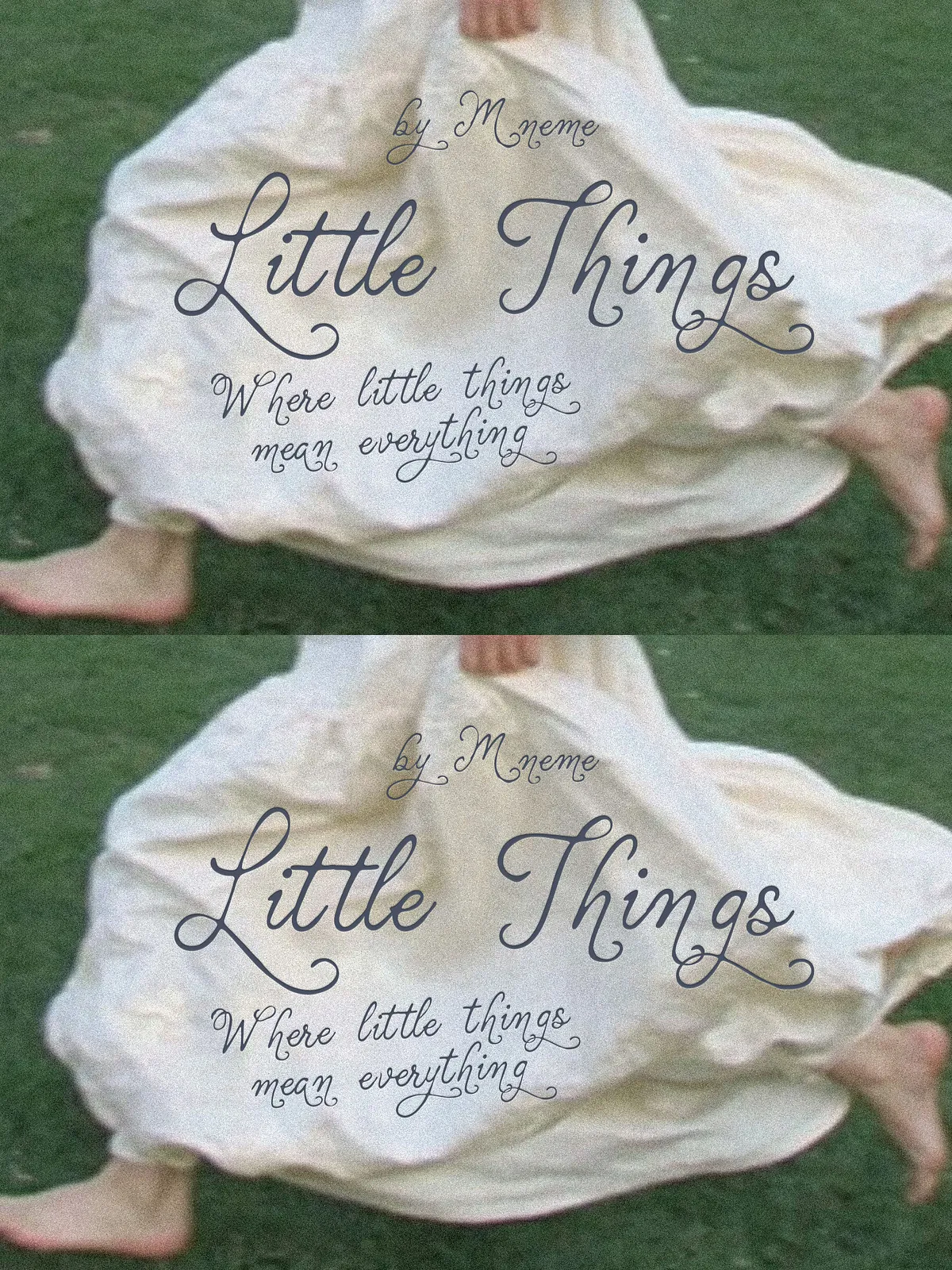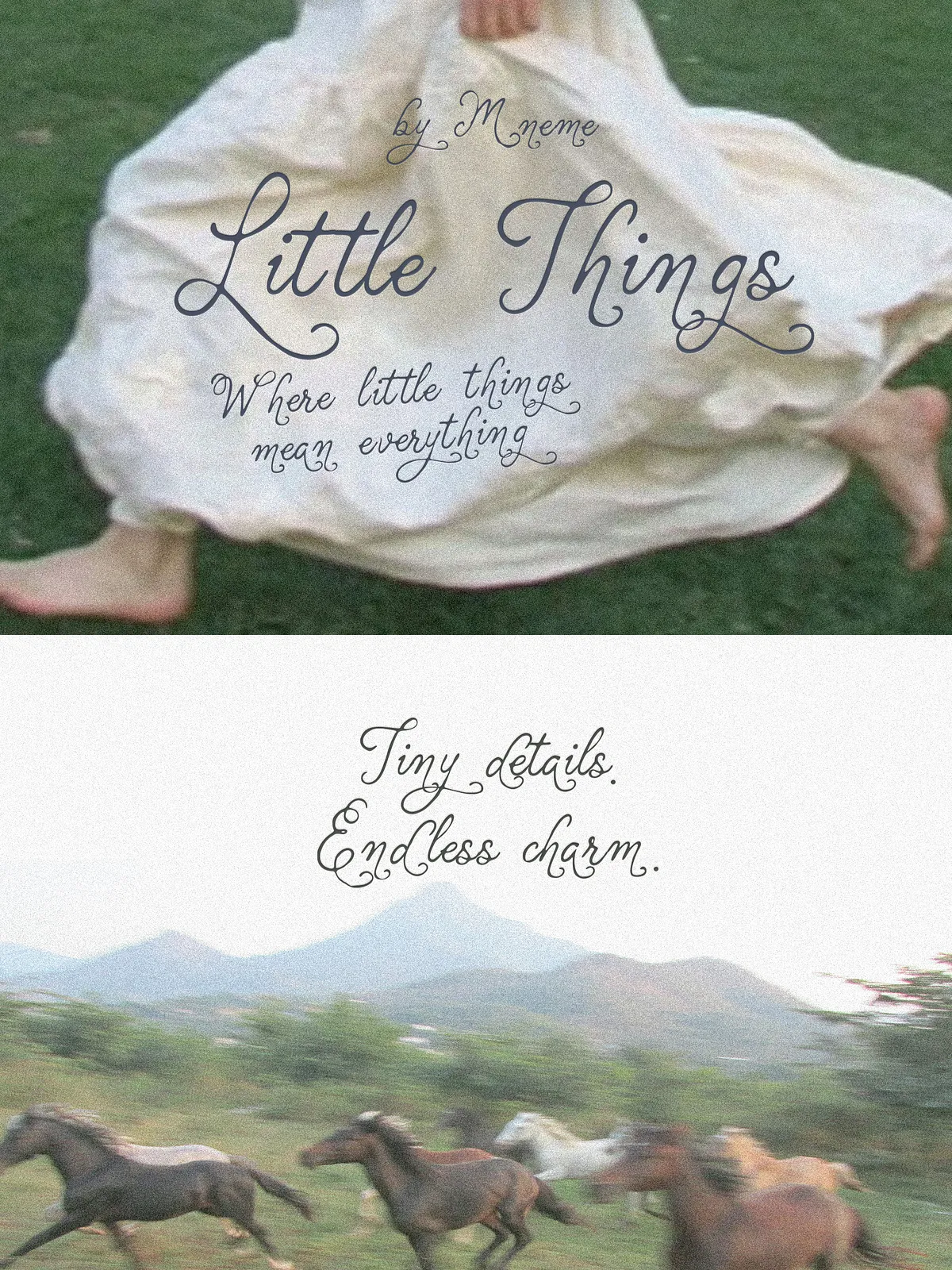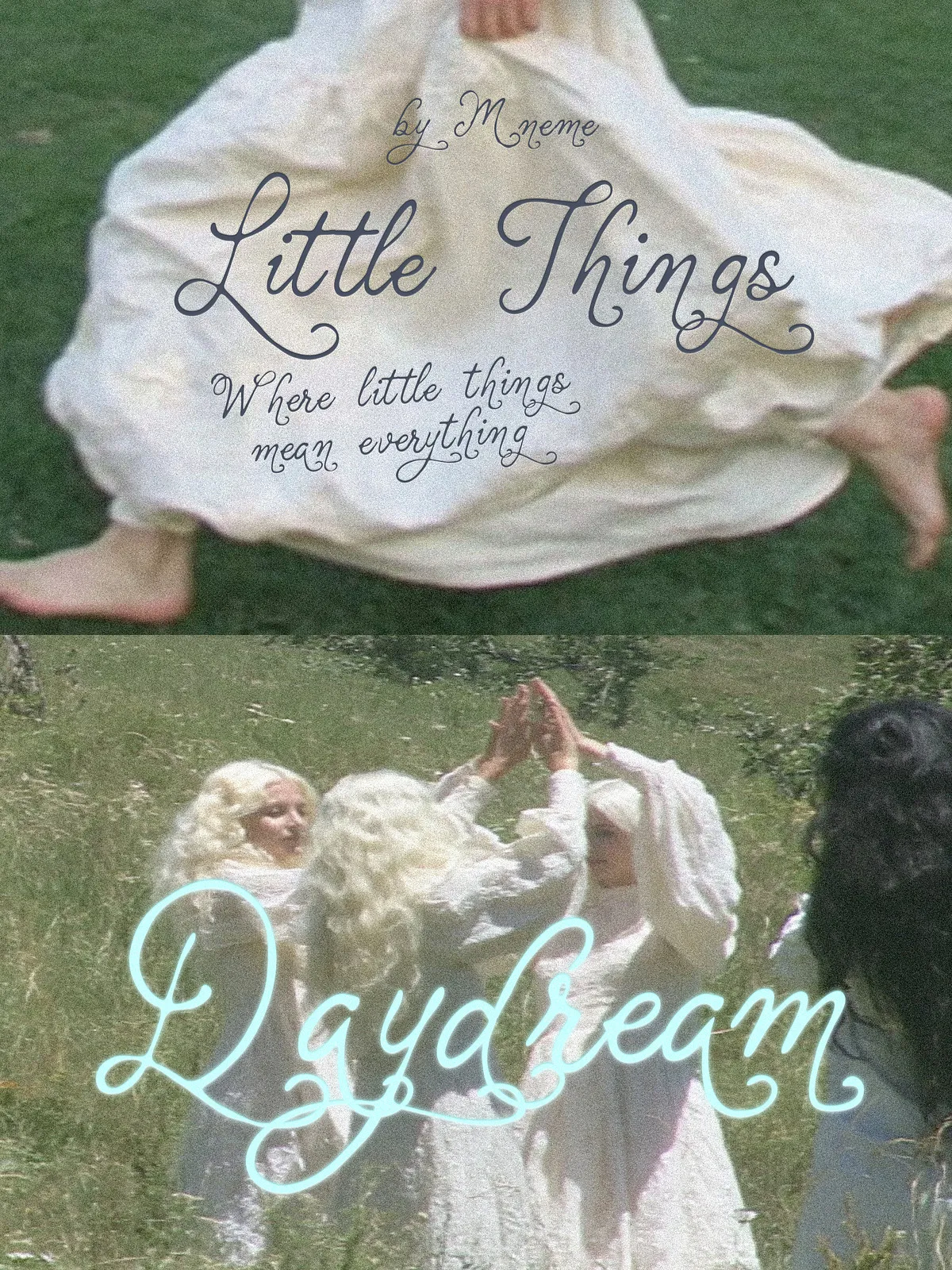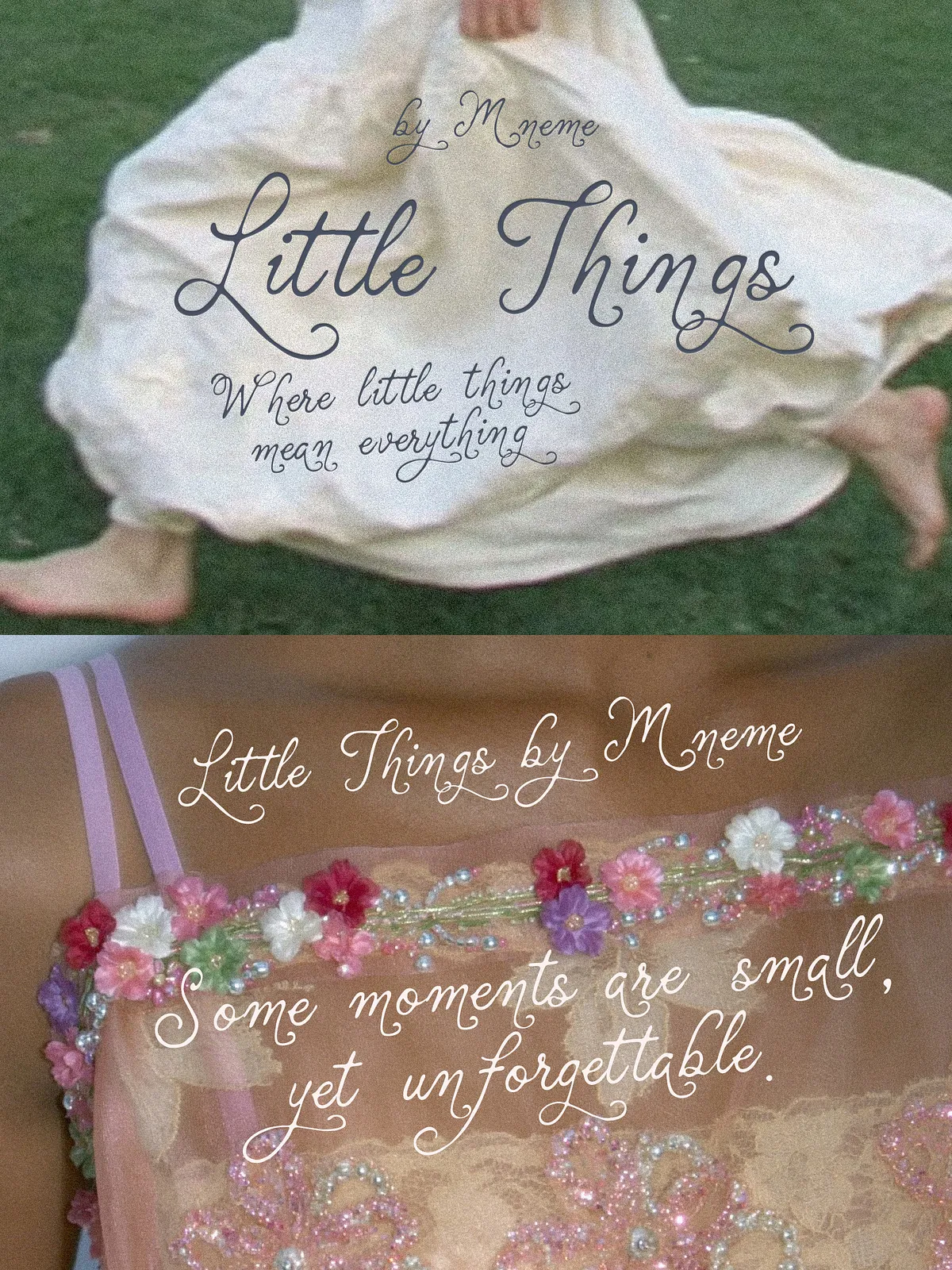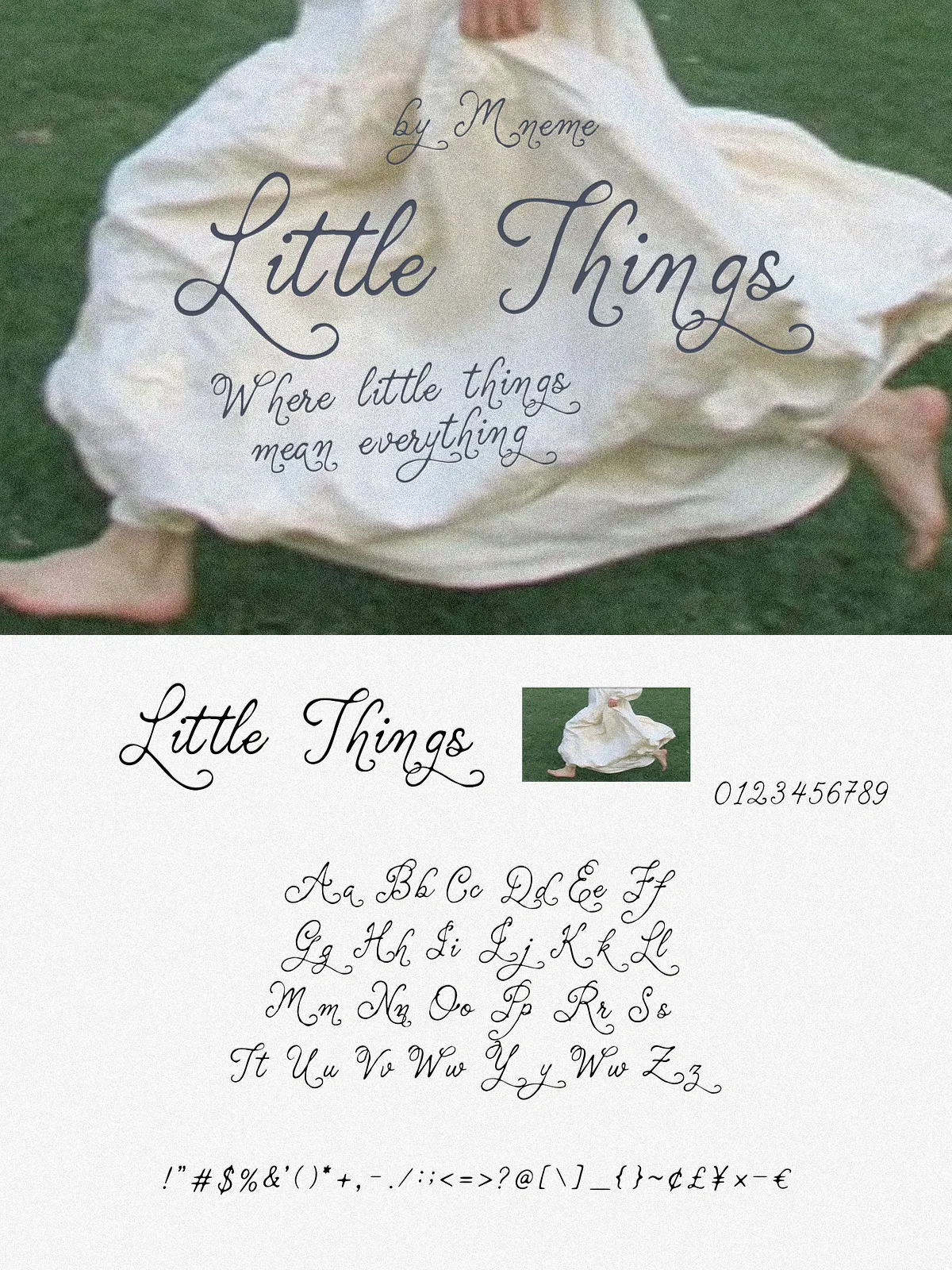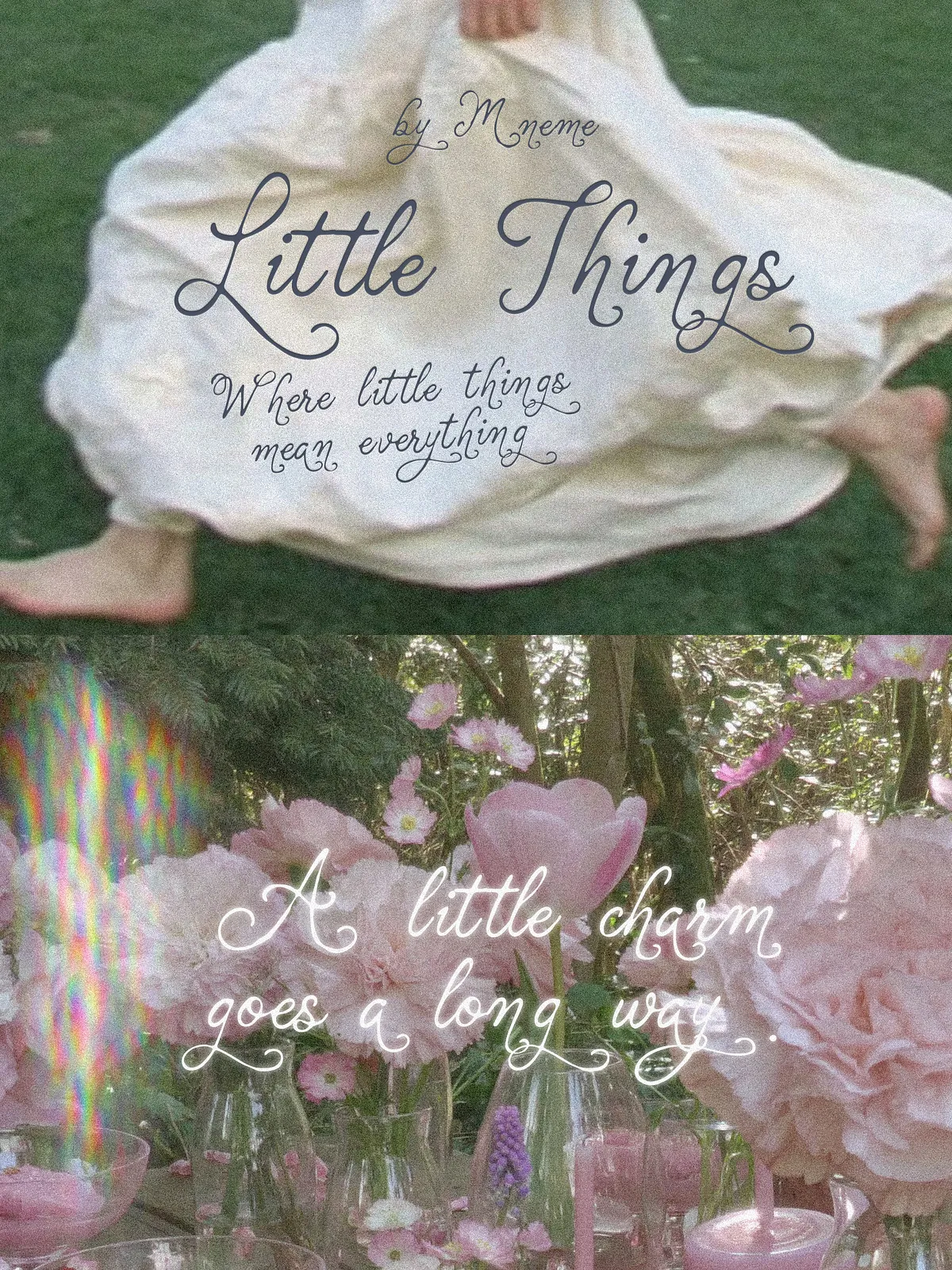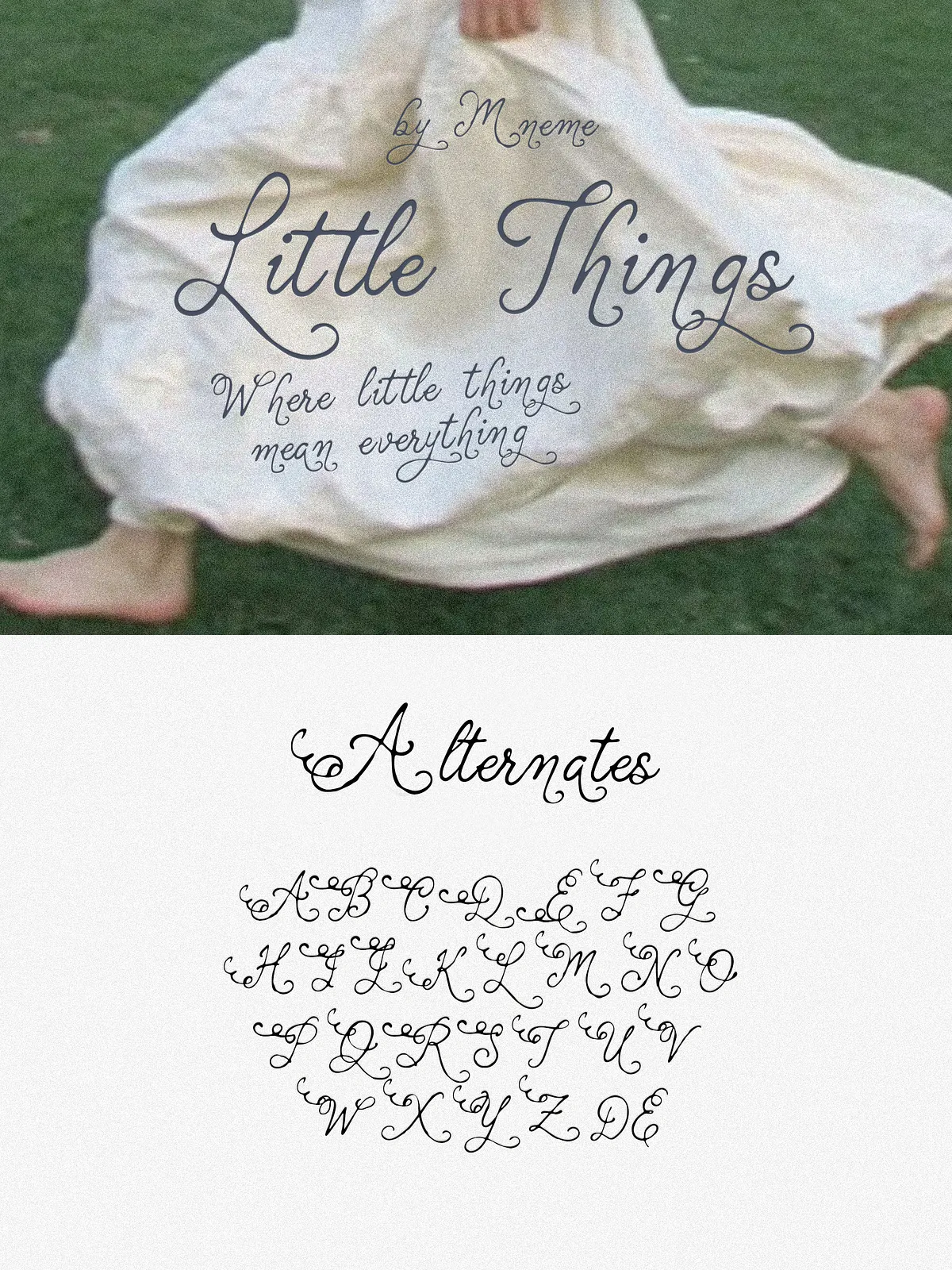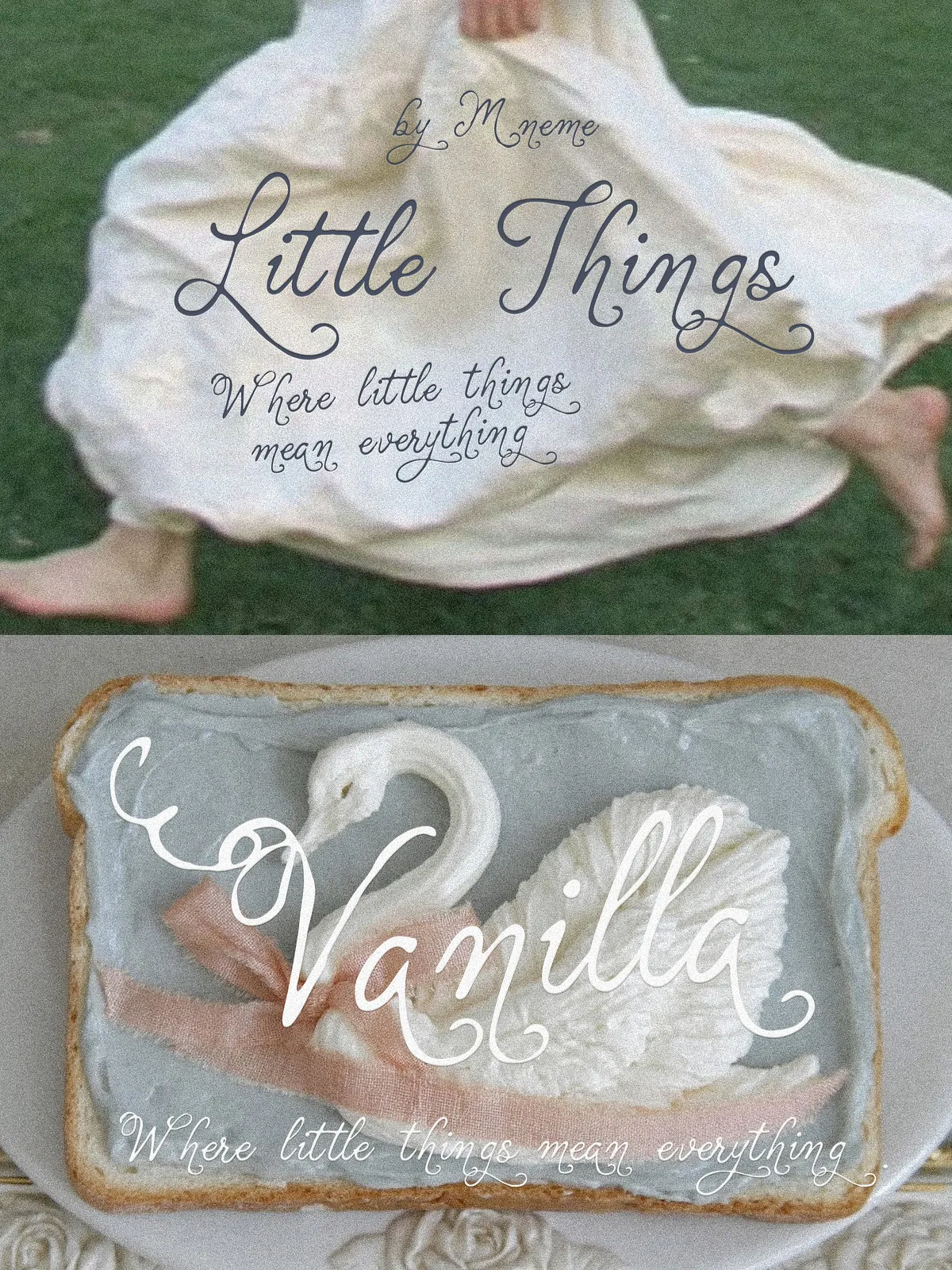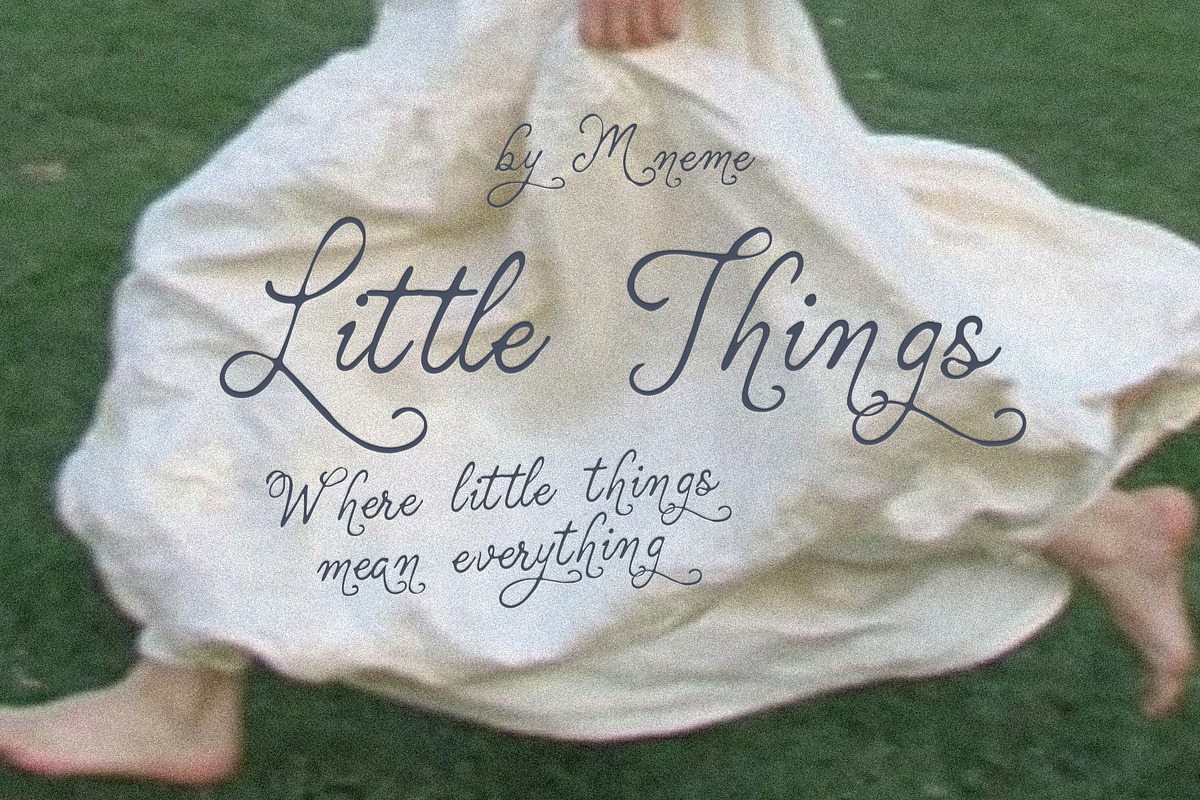
LittleThings brings the intimacy of handwritten notes and the elegance of vintage stationery into your modern designs. This display typeface combines soft curves, delicate swashes, and tasteful decorative flourishes to create a warm, nostalgic voice that reads clearly and feels personal. LittleThings enhances brand personalities, elevates invitations, and transforms packaging into memorable tactile experiences.
Design Character
Handwritten Warmth
LittleThings captures natural pen movement and the gentle rhythm of handwriting. Each glyph flows with organic strokes and subtle imperfections that make copy feel handcrafted. The font balances informality and refinement so it works equally well for charming labels and upscale stationery.
Decorative Details
Delicate swashes and flourishes add ornament without overwhelming the letterforms. LittleThings uses restrained decoration to highlight key words and create focal points in headlines, logos, and product names. The result reads as intentional and refined rather than ornate for ornament’s sake.
- Handcrafted letterforms with soft curves and swashes
- Clear, readable shapes for both short headlines and decorative lines
- Strong performance in print and digital layouts
- Ready-made personality for branding, stationery, and product design
Ideal Applications
LittleThings excels in contexts that benefit from warmth, charm, and a human touch. Use it to:
- Design wedding invitations, RSVPs, and event stationery
- Create greeting cards and artisan product labels
- Build boutique brand identities and lightweight logos
- Compose social media graphics with emotional impact
- Design beauty packaging and small-run product labels
- Enhance editorial spreads, headlines, and pull quotes
- Craft scrapbook pages, handmade tags, and craft-market signage
Practical Tips for Designers
Pairing Recommendations
Pair LittleThings with neutral, low-contrast body fonts to preserve legibility and hierarchy. A clean sans-serif or a simple serif works well for supporting copy. Use LittleThings for display phrases, brand names, or decorative headlines and reserve the neutral face for paragraphs and dense text blocks.
Color and Treatment
LittleThings performs beautifully in soft palettes, kraft textures, and muted inks that amplify its vintage feel. Apply subtle letterpress effects, light grain, or foil highlights to increase tactile appeal. When using high-contrast backgrounds, keep flourishes minimal to preserve readability.
Why Choose LittleThings
Choose LittleThings when you want typography that feels personal and thoughtfully crafted. The typeface injects warmth into brand stories, helps invitations convey emotion, and gives products a handmade aura that resonates with buyers. LittleThings speeds up creative workflows by providing a ready-to-use decorative voice that remains legible and stylish across media.